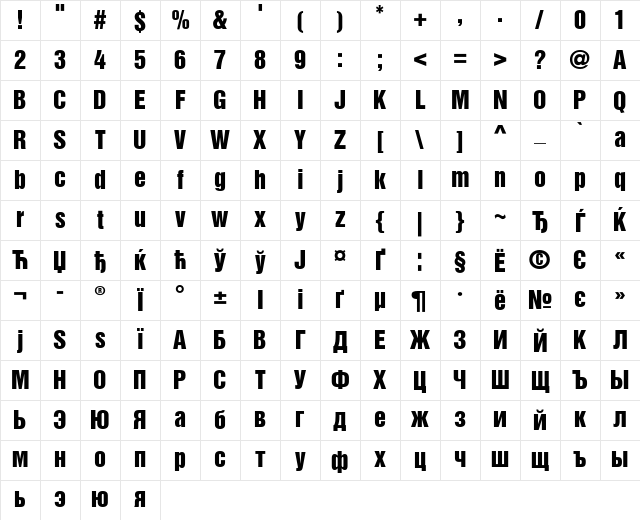
HelveticaInseratCyr Upright Regular
Design Context for HelveticaInseratCyr Upright
HelveticaInseratCyr Upright is a composed and adaptable typeface that performs quietly and consistently across a wide range of design contexts.